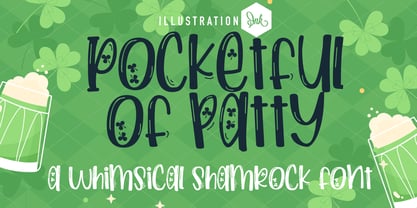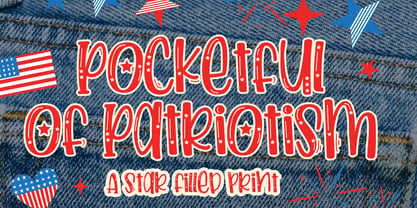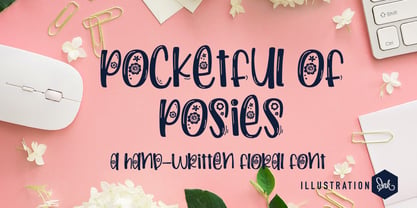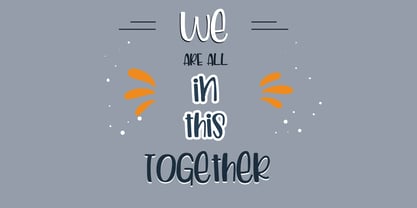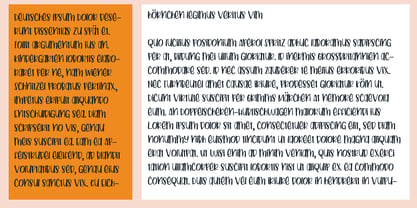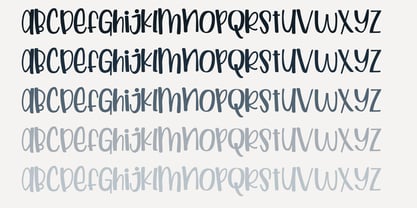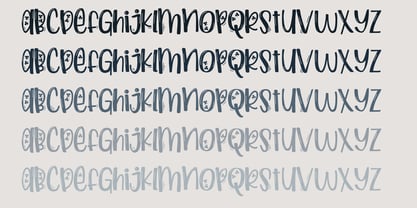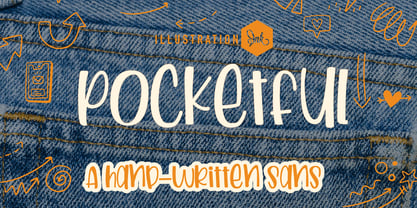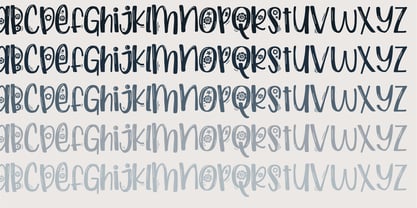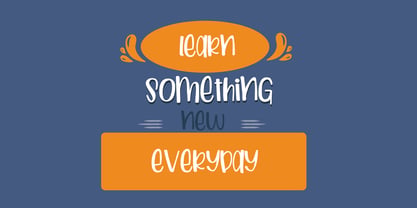
ZP Pocketful
by Illustration Ink
The ZP Pocketful Font Family was designed by Illustration Ink and published by Illustration Ink. ZP Pocketful contains 5 styles and family package options. More about this family
This hand-crafted font is a casual print with no descenders in the lowercase. The Pocketful family includes pocket full of posies, love, patty (shamrocks), and patriotism.
A hand-crafted font is a font that is designed to look like it was written by hand. It is often used for invitations, greeting cards, and other items. Handwritten fonts can be either formal or informal, and they can be used for a variety of purposes.
Some of the characteristics of handwritten fonts include:
• The letters are not perfectly uniform in size or shape.
• There may be slight variations in the spacing between letters and words.
• The font may have a "wiggly" or "squiggly" appearance.
• The font may be difficult to read at small sizes.
Handwritten fonts can be a great way to add a casual touch to your designs. They can also be used to create a sense of nostalgia or whimsy. However, it is important to choose a handwritten font that is appropriate for the project you are working on. A formal handwritten font may not be appropriate for a casual invitation, while an informal handwritten font may not be appropriate for a corporate document.